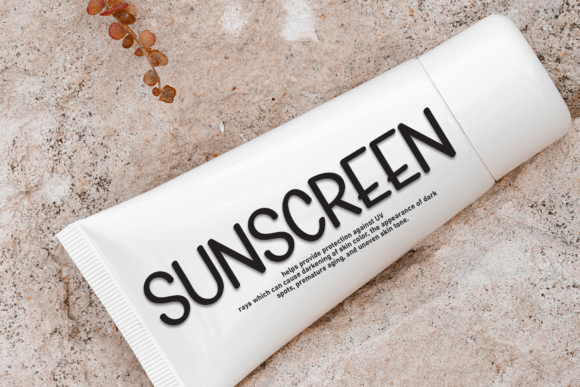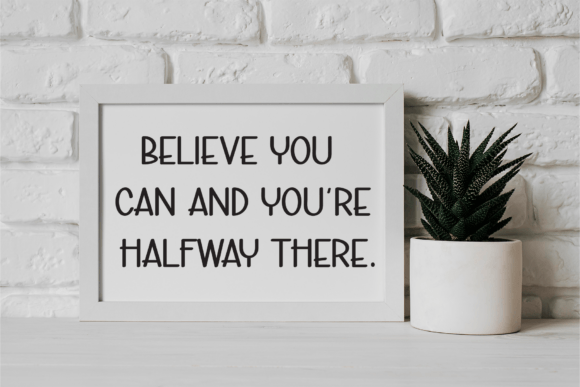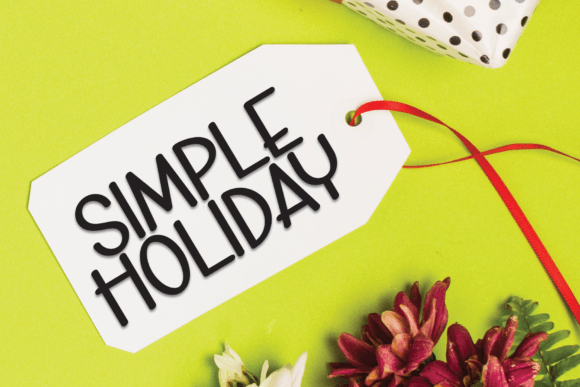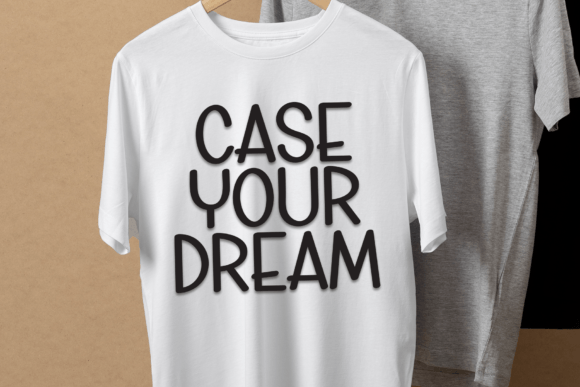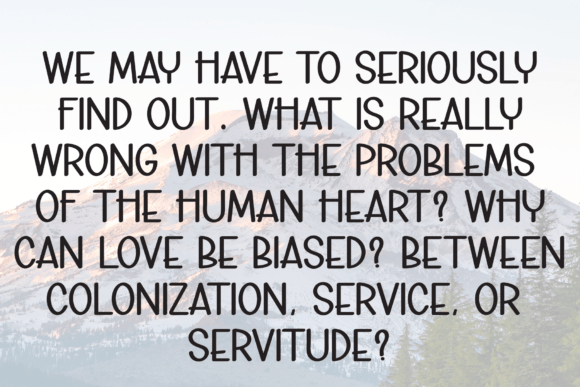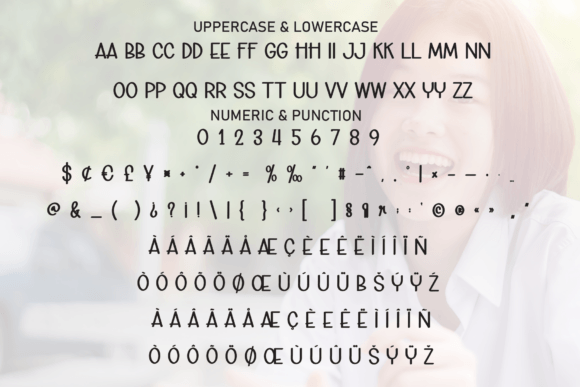
Introducing Happy Smile Font: The Perfect Addition to Your Creative Projects
Are you tired of using the same old fonts for your creative projects? Do you want to add a touch of joy and fun to your words? Look no further than Happy Smile Font! This bold, handmade font is designed to bring a smile to your face and a playful vibe to your designs. In this article, we’ll dive into the features and benefits of Happy Smile Font, and explore how it can elevate your posters, cards, and other creative projects.
The Unique Style of Happy Smile Font
Happy Smile Font is a one-of-a-kind font that boasts a playful and cheerful style. Its bold, handmade letters are carefully crafted to bring a sense of joy and friendliness to your messages. The font’s unique style makes it perfect for designers and crafters who want to add a personal touch to their work. Whether you’re creating posters, cards, or social media graphics, Happy Smile Font is sure to make your messages stand out from the crowd.
Features of Happy Smile Font
- Bold and Playful: Happy Smile Font is a bold and playful font that’s perfect for making a statement. Its thick lines and rounded edges give it a friendly and approachable feel.
- Handmade with Love: This font is carefully crafted with love and attention to detail. Each letter is uniquely designed to bring a sense of joy and whimsy to your designs.
- Perfect for Creative Projects: Happy Smile Font is ideal for a wide range of creative projects, including posters, cards, social media graphics, and more.
Benefits of Using Happy Smile Font
So why should you choose Happy Smile Font for your creative projects? Here are just a few benefits of using this amazing font:
- Adds a Touch of Joy: Happy Smile Font is designed to bring a smile to your face and a sense of joy to your designs. It’s the perfect way to add a little happiness to your messages.
- Stand Out from the Crowd: With its unique and playful style, Happy Smile Font is sure to make your messages stand out from the crowd. Whether you’re creating posters, cards, or social media graphics, this font will help you grab attention and make a lasting impression.
- Perfect for Branding: Happy Smile Font is also perfect for branding and marketing projects. Its friendly and approachable style makes it ideal for businesses that want to convey a sense of fun and approachability.
How to Use Happy Smile Font
Using Happy Smile Font is easy! Here are a few tips to get you started:
- Pair it with Other Fonts: Happy Smile Font looks great when paired with other fonts. Try pairing it with a clean and simple font for a bold and playful look.
- Use it for Headlines: This font is perfect for headlines and titles. Use it to add a touch of joy and whimsy to your designs.
- Experiment with Colors: Happy Smile Font looks great in a variety of colors. Experiment with different colors and combinations to find the perfect look for your design.